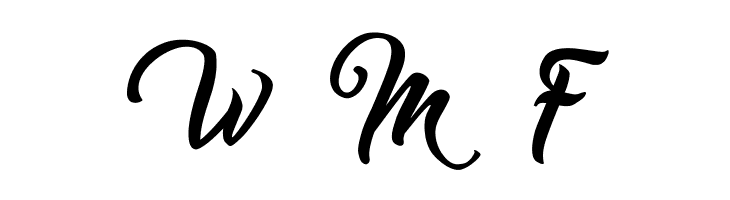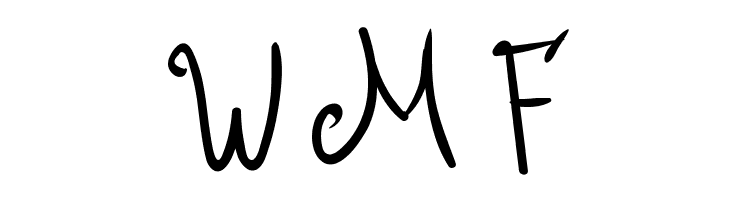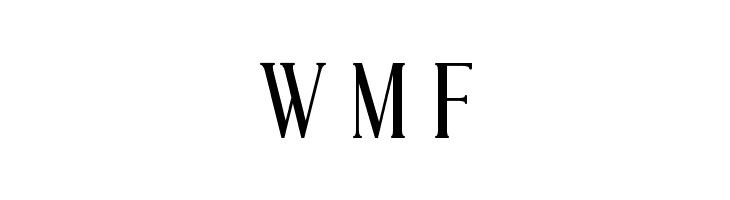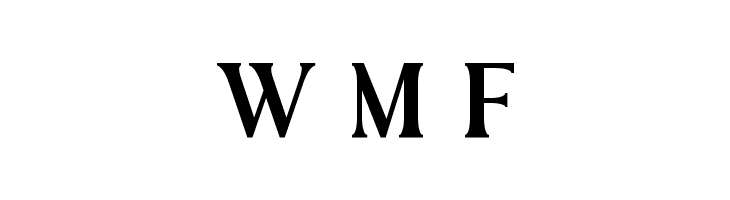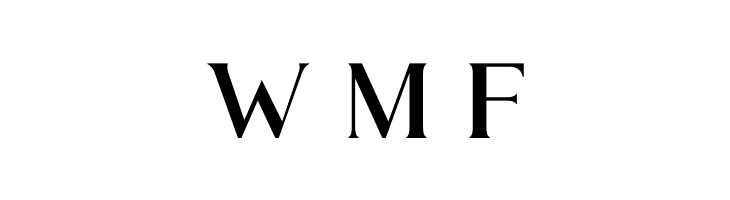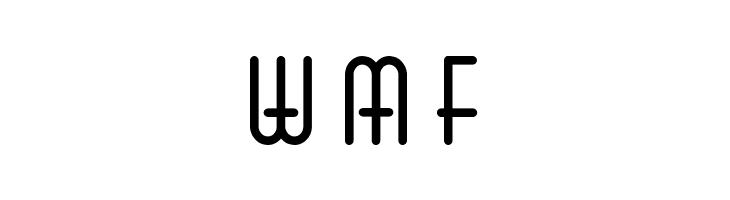
A dynamic and elegant script font with fluid strokes.
A dynamic, flowing script font with a handwritten, artistic style.
A playful and whimsical font with rounded, consistent strokes and a friendly appearance.
A lively, cursive handwritten font with bold, expressive strokes.
A flowing, cursive script font with elegant, connected characters.
A playful and elegant script font with decorative swirls and loops.
A dynamic and fluid script font with elegant curves and bold lowercase letters.
A classic script font with elegant, flowing curves and sophisticated style.
A dynamic and expressive handwritten font with fluid, cursive letterforms.
A dynamic, cursive font with fluid strokes and a handwritten appeal.
A dynamic, cursive script font with a flowing, handwritten style.
A graceful and fluid script font with elegant, connected letters.
A playful and bold script font with a whimsical, handwritten style.
A flowing, cursive script font with elegant, sweeping curves.
A whimsical and playful script font with flowing, interconnected letters.
A bold, expressive script font with fluid, interconnected strokes.
A bold, rounded handwritten font with a playful and casual style.
A classic blackletter font with intricate, ornate designs and bold, angular lines.
A bold, angular blackletter-style font with intricate detailing.
A playful, hand-drawn font with bold outlines and a cartoonish style.
A bold, textured font with a dynamic, distorted appearance.
A classic serif font with elegant, elongated strokes and high contrast.
A bold, classic serif font with a strong, authoritative presence.
A classic serif font with bold strokes and high contrast, ideal for formal and authoritative designs.
A classic serif font with elegant thin strokes and subtle curves.
A classic serif font with sharp serifs and a sophisticated appearance.
A modern, rounded sans-serif font with a friendly and approachable design.
A playful, hand-drawn font with a doodle-like, textured style.
A modern, handwritten font with elongated, elegant letters.
A modern, rounded, and geometric font with a condensed appearance.
A playful, spooky font with a hand-drawn, Halloween-inspired design.
A bold, handwritten font with playful, brush-like strokes and a slightly spooky aesthetic.
A modern, elegant script font with a fluid, handwritten style.
A bold, decorative font with high contrast and vintage flair.